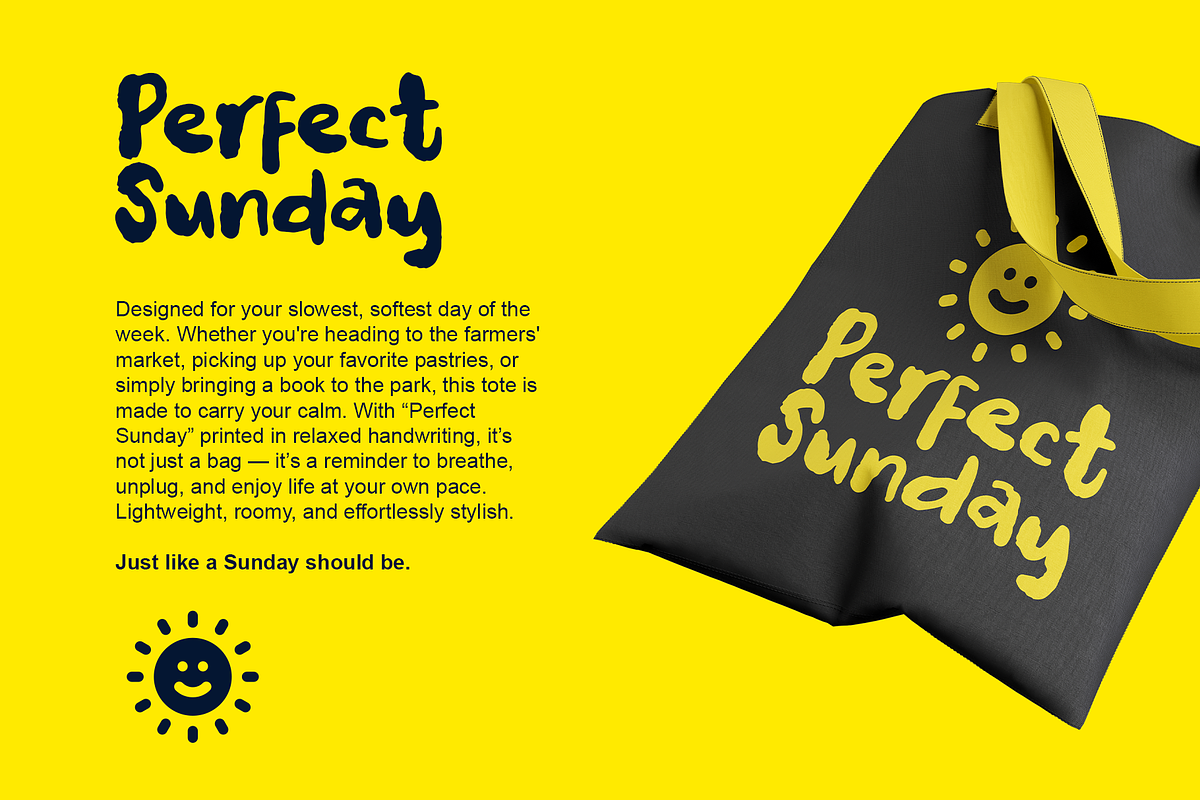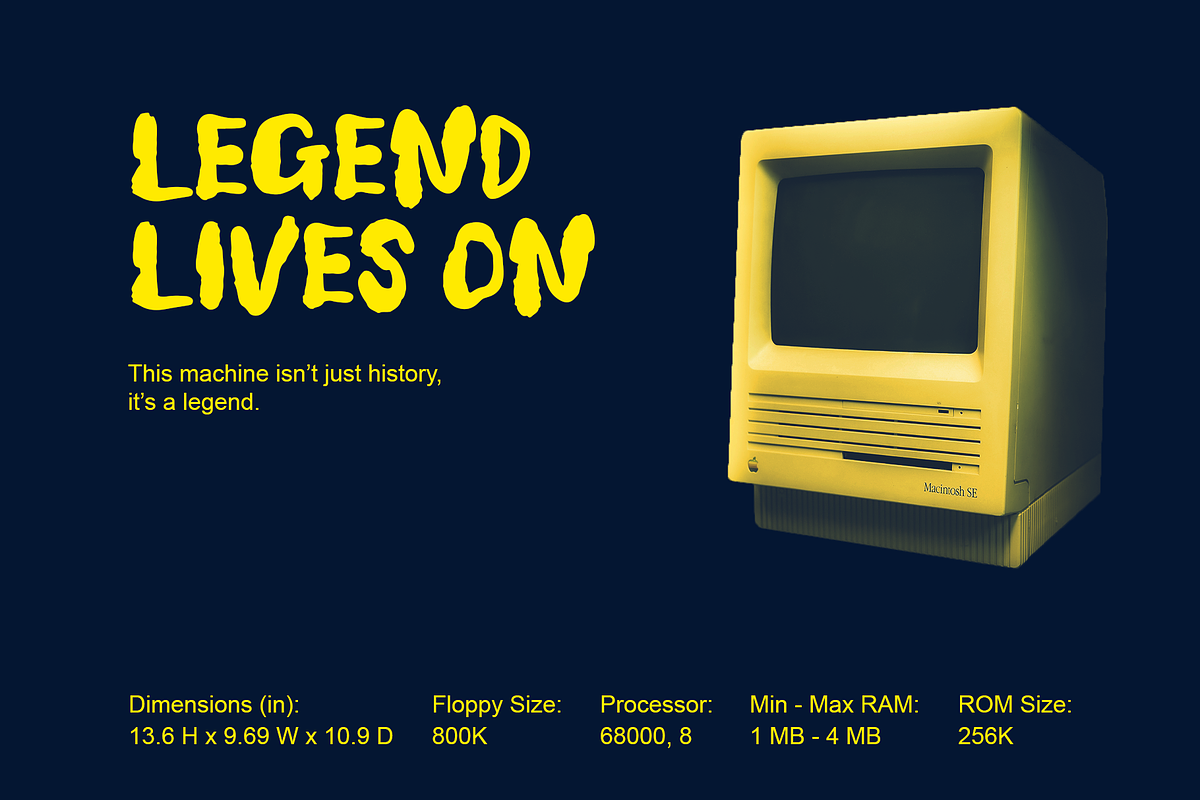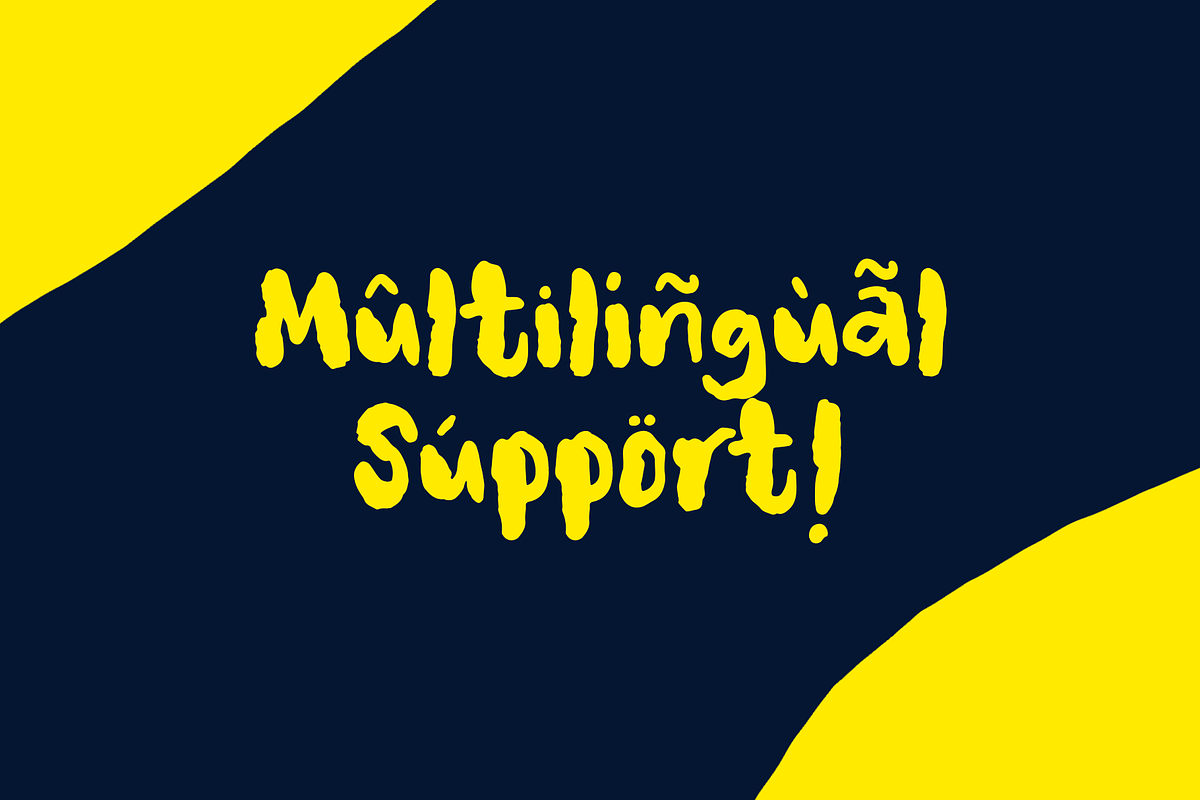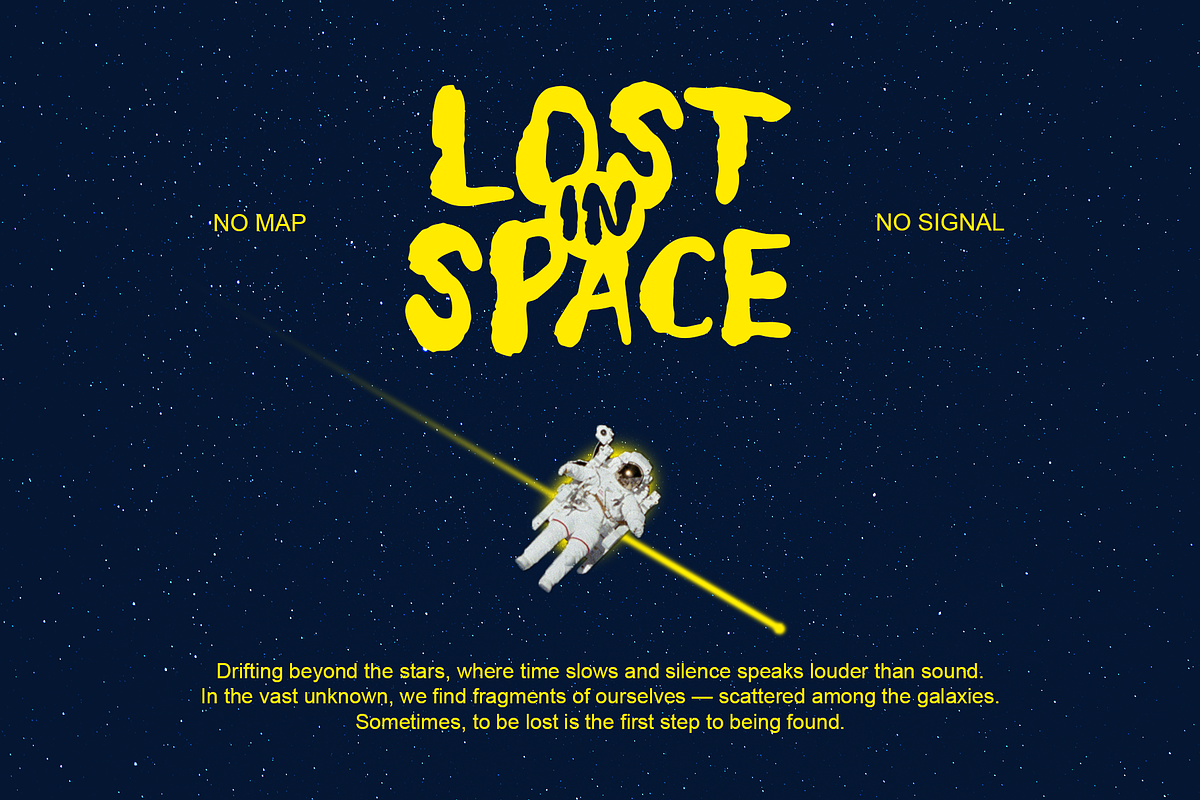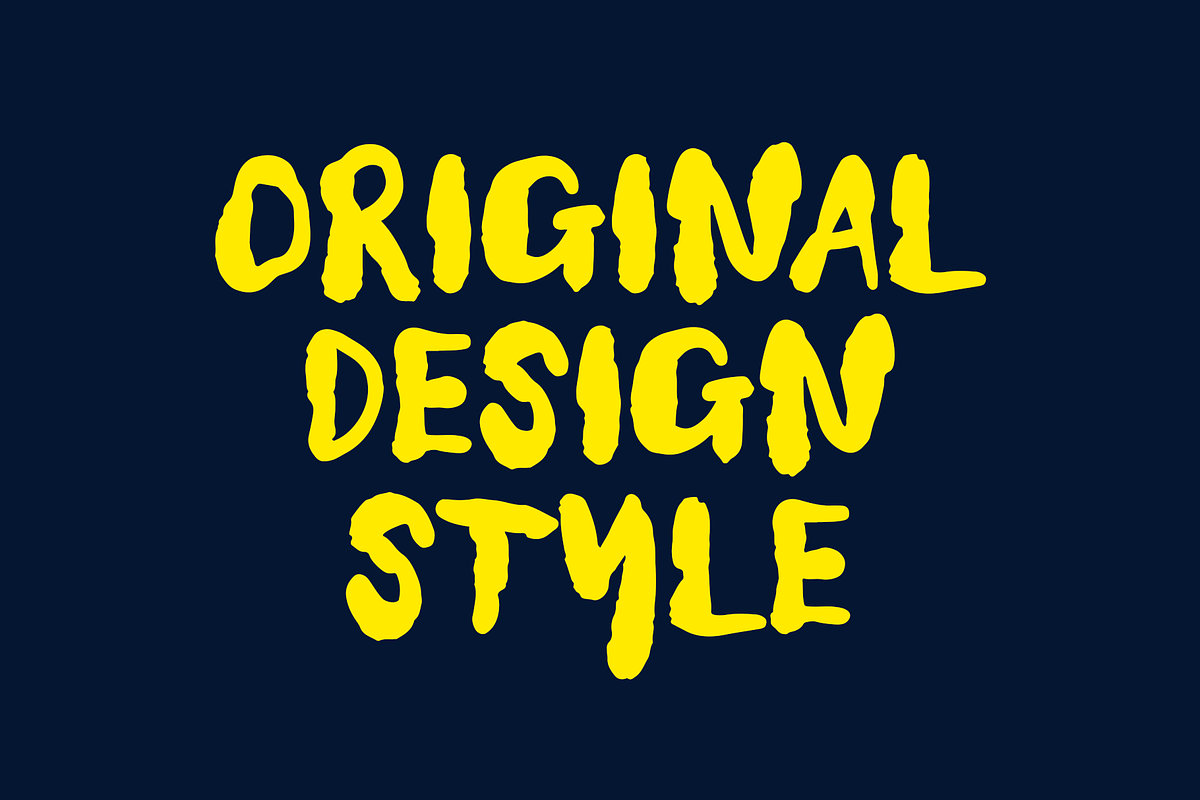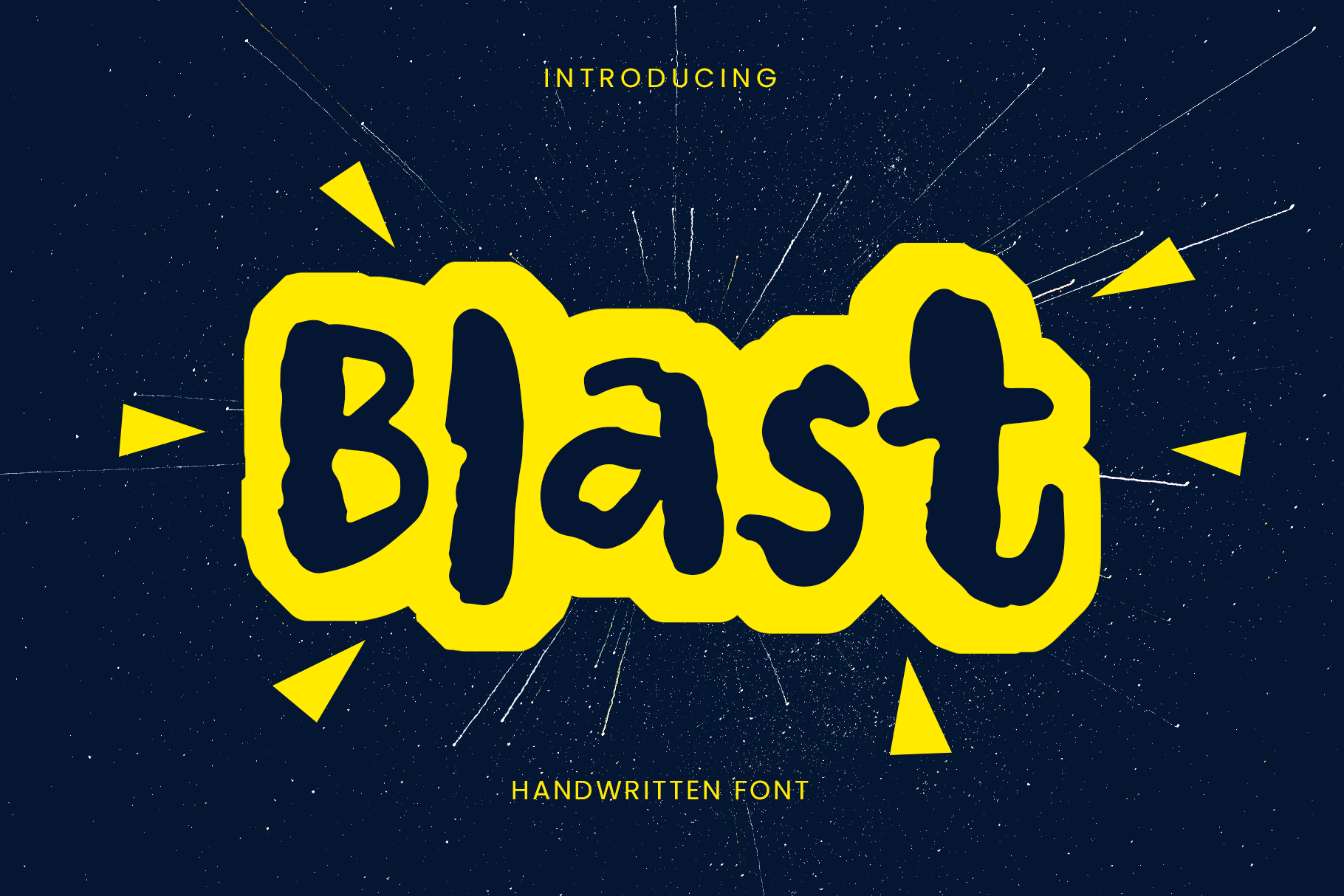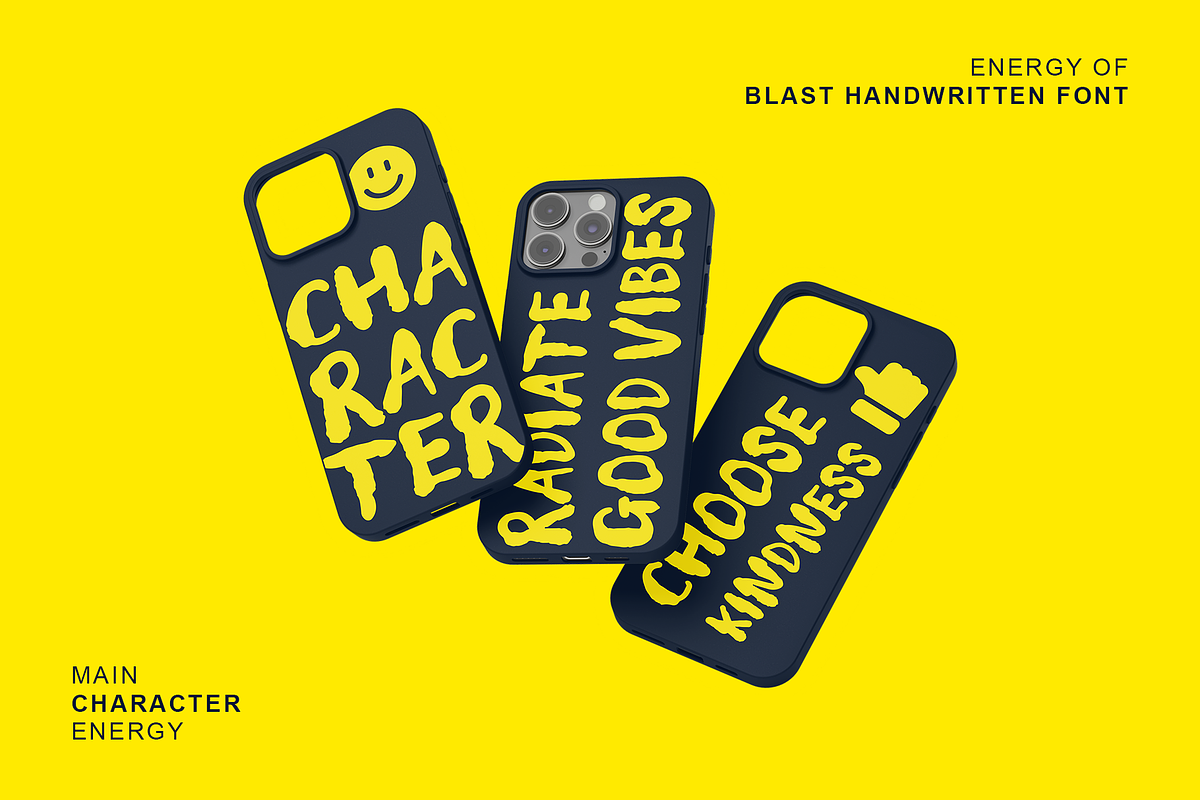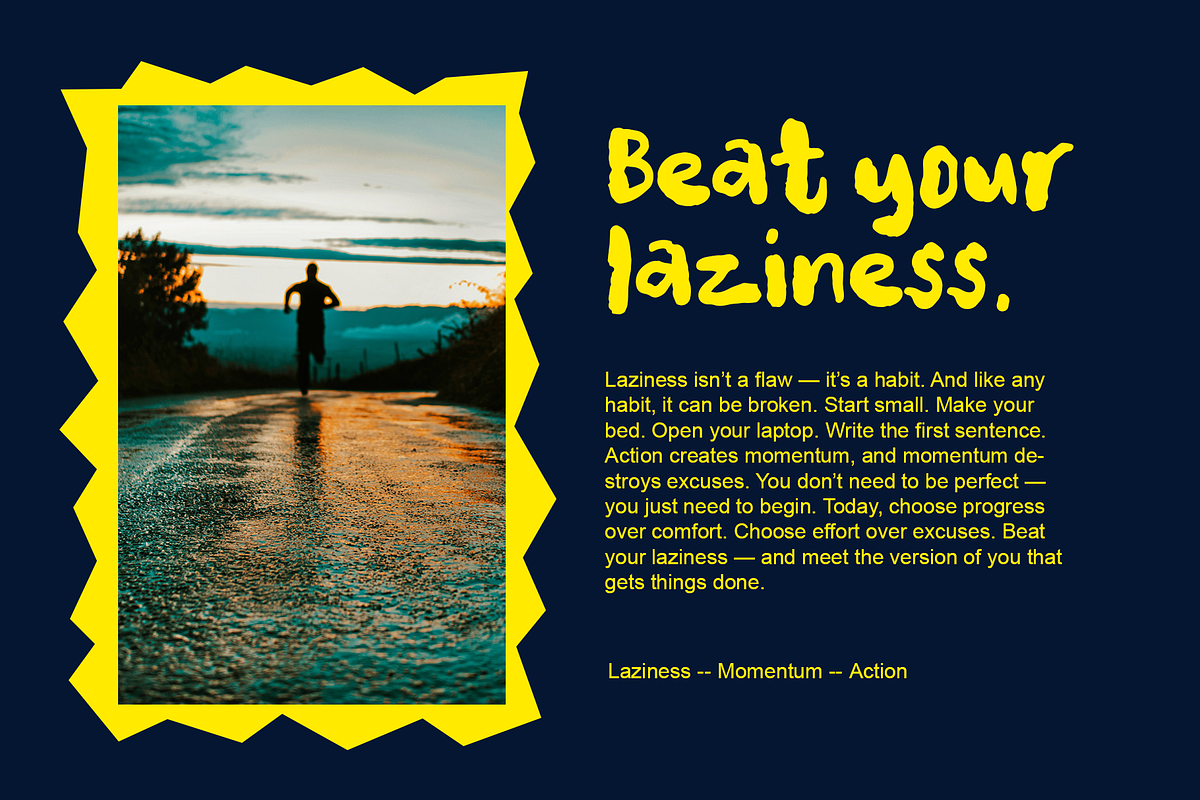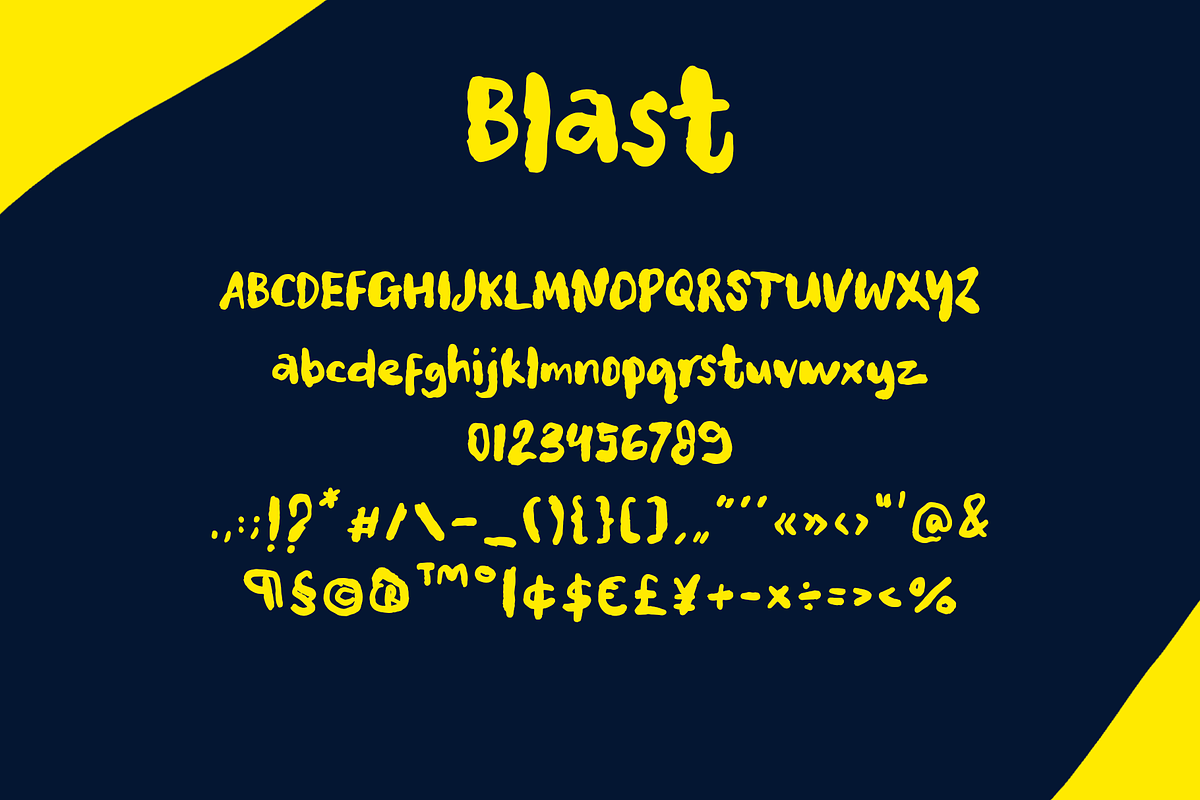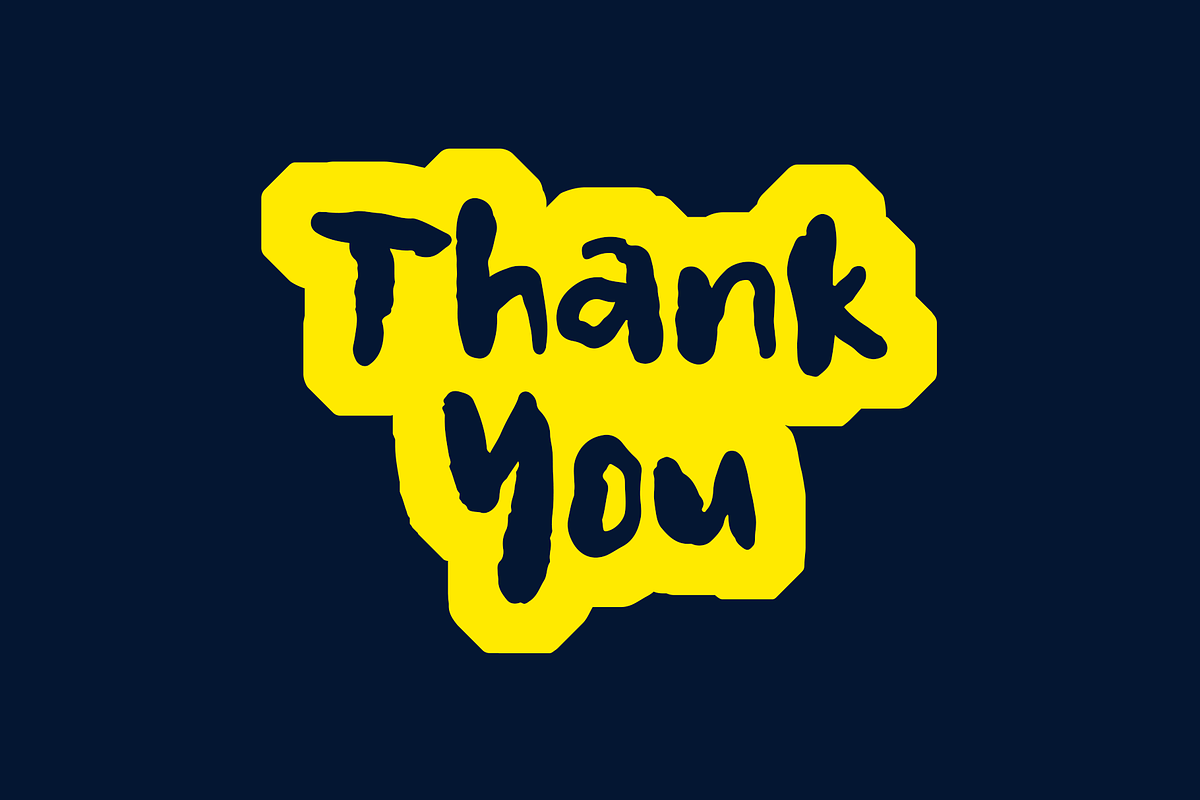
Blast | Bold and Playful Font
Blast – A Bold, Energetic Handwritten Font Blast is not your average handwritten font — it’s explosive, bold, and full of character. With its thick brush strokes and playful irregularity, Blast brings raw energy to any design. Whether you’re creating loud headlines, playful t-shirts, nostalgic posters, or empowering phone case quotes, this font makes your words impossible to ignore.
Inspired by retro vibes and comic-style bursts, Blast is perfect for: Apparel design, Branding that pops, Motivational quotes, Children’s book titles, Posters, packaging, and beyond
It includes uppercase & lowercase letters, numbers, punctuation, and multilingual support — giving you creative freedom across styles and languages.